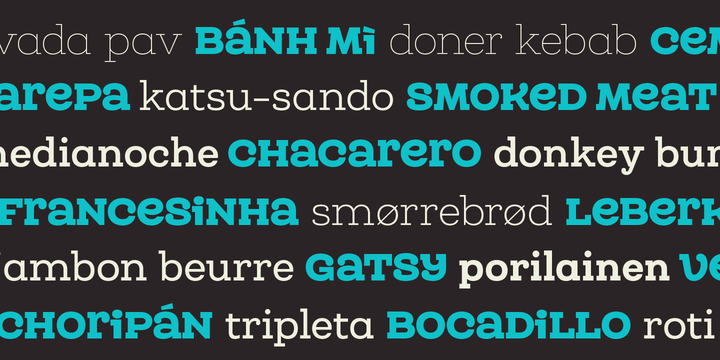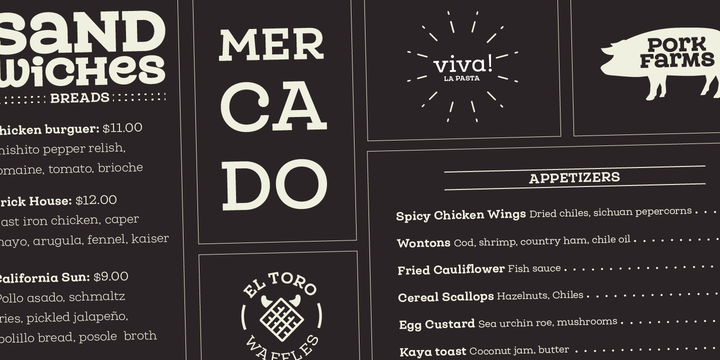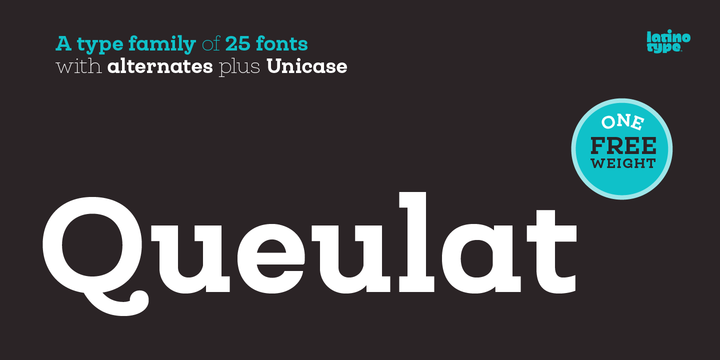
Queulat Font Family
Queulat is a hybrid typeface that combines two different styles, reflecting charm, freshness and, especially, a strong personality.
| Classification: | Serif Fonts, Slab Serif Fonts, Style / Aesthetic Fonts |